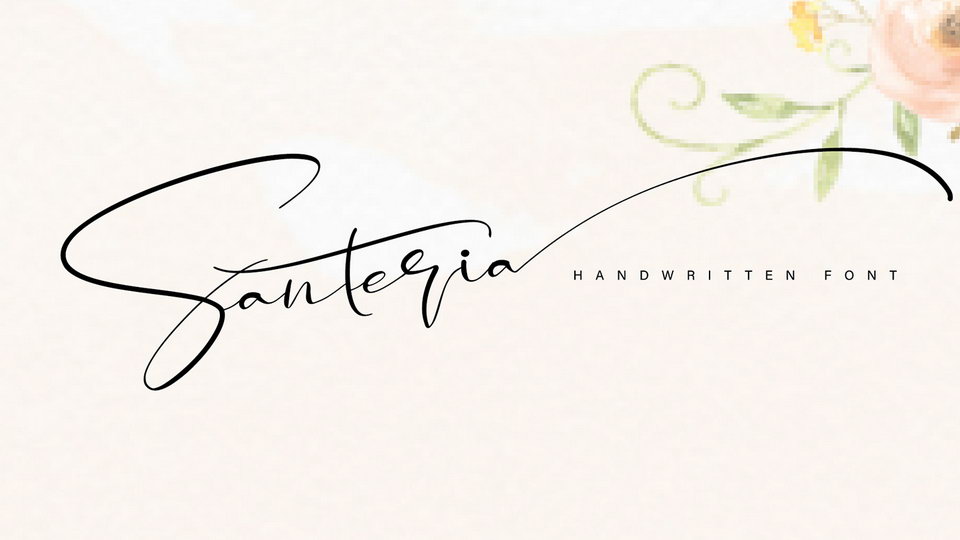
Download Santeria Signature font, a fabulous handwritten signature style script with 2 styles which can be combined perfectly, giving you the opportunity to create multiple unique designs in an instant.
Designer: Thomas Aradea